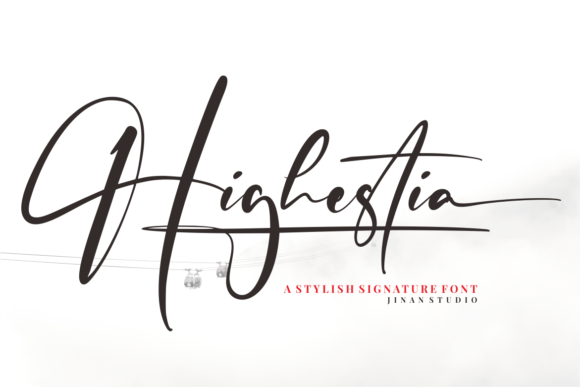
Introducing Highestia, a captivating script font that will add a touch of sophistication and romance to your creative projects. Embrace the beauty of handwritten elegance with Highestia, the font that effortlessly adds a personal and heartfelt touch to every design.
Crafted with meticulous attention to detail, Highestia mimics the fluid strokes of a skilled calligrapher, bringing a touch of artistry to your words. Whether you're designing a heartfelt greeting card, crafting an unforgettable headline, or adding a unique flair to your branding, Highestia is the perfect choice.
Unlike ordinary fonts, Highestia empowers you with the freedom to express your creativity. Encoded with PUA, this font grants you effortless access to a full range of glyphs and swashes, allowing you to add intricate details and flourishes to your designs with ease. Unleash your imagination and create breathtaking masterpieces that will leave a lasting impression.
Indulge in the romantic allure of Highestia, a font that will elevate your designs to new heights. Its graceful curves and delicate flourishes evoke a sense of timeless elegance, adding a touch of charm and sophistication to any project. Whether you're creating invitations for a special occasion, designing elegant packaging, or crafting heartfelt social media posts, Highestia will add a touch of magic to every creation.
Experience the enchantment of Highestia today and transform your designs into works of art. Its versatility knows no bounds, making it the perfect choice for a wide range of projects. From wedding invitations to corporate branding, Highestia effortlessly adapts to your creative vision, adding a touch of sophistication and romance to every endeavor.
Don't settle for ordinary fonts. Choose Highestia, the font that ignites your creativity and captivates your audience. Embrace the beauty of handwritten elegance and elevate your designs to new heights of enchantment.